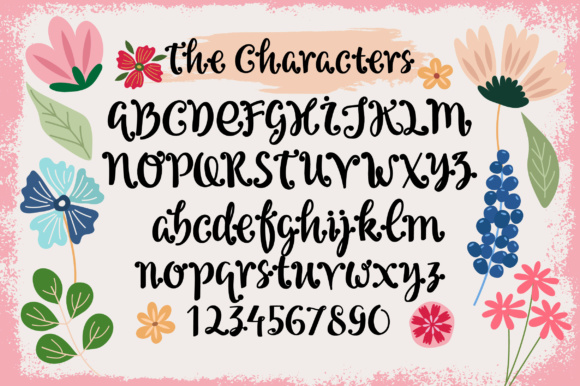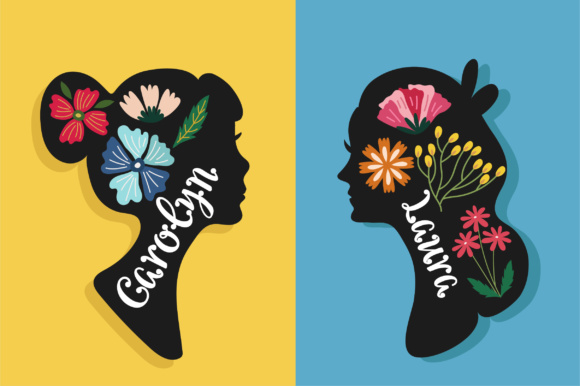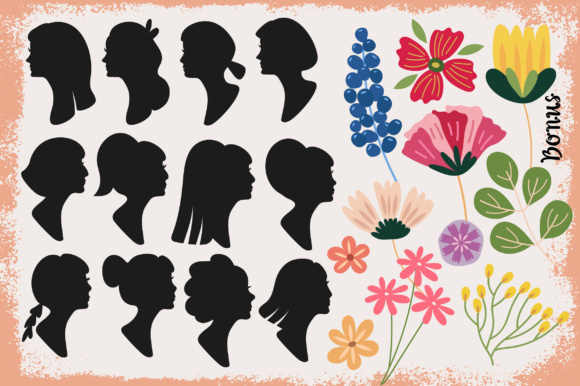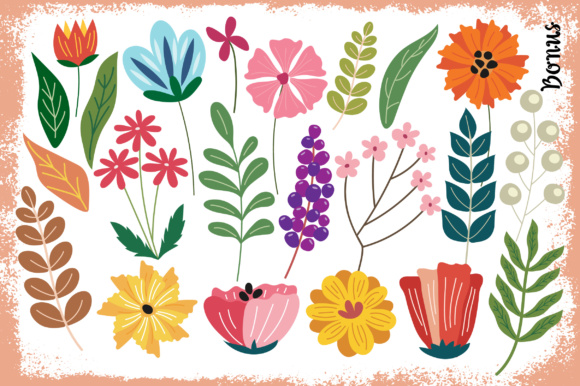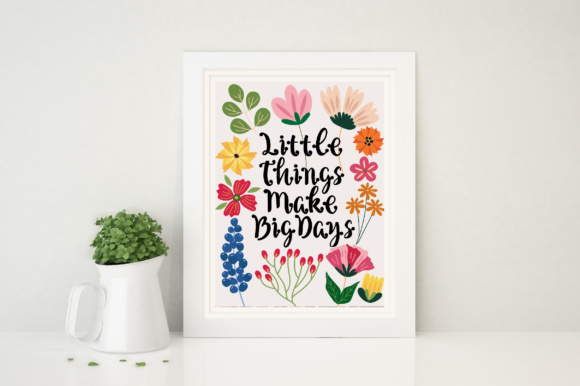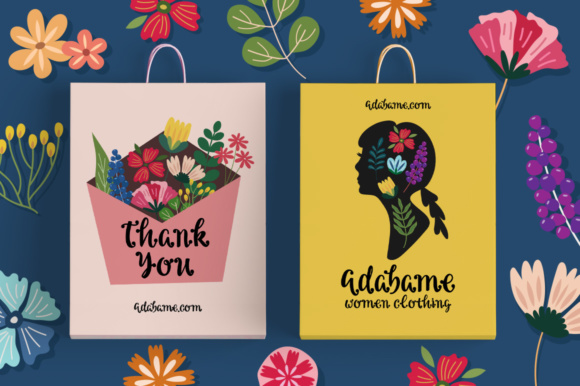
Unveiling the Magic of Adabame Font
Have you ever sat at your desk, surrounded by empty pages and a blank mind, and suddenly, a spark of creativity ignites within you? For designers, those moments are the most thrilling – the moment when an idea blossoms into something beautiful. And for those who adore romantic designs, the Adabame Font is about to become your new best friend.
This enchanting script is designed to transport you to a world of whimsy and romance, complete with beautiful women silhouettes and delicate flower illustrations. The Adabame Font is more than just a typography – it’s a gateway to a world of artistic expression, where your imagination knows no bounds.
Whether you’re a seasoned designer or just starting out, the Adabame Font is a valuable addition to your toolkit. Its unique style and charming illustrations make it an ideal choice for creating romantic designs that will leave a lasting impression.
Key Features of Adabame Font
- Font Family: Adabame is a unique, handwritten font family designed to evoke a sense of elegance and sophistication.
- Character Set: The Adabame font family includes a wide range of characters, including uppercase and lowercase letters, numbers, punctuation marks, and special characters.
- Unique Characteristics: Adabame features a distinctive, hand-drawn design with subtle imperfections and variations, giving it a unique and organic feel.
Review of Adabame Font
I recently had the chance to work with the Adabame Font, and I must say it’s an interesting addition to any design project. ✨ One thing that stands out is its unique, eclectic aesthetic. The font’s intricate details and varied letterforms add a touch of personality to any text. The Adabame Font is perfect for designers looking to create eye-catching headings or titles that stand out from the crowd.
Another advantage of the Adabame Font is its versatility. It can be used in a variety of contexts, from modern websites to vintage-inspired designs. The font’s adaptability makes it an excellent choice for designers who need a flexible font that can be easily customized to fit their project’s needs.
- ⚠️ Readability can be a concern in large blocks of text, as the font’s intricate details can make it difficult to read quickly.
- ⚠️ The font’s eclectic style may not be suitable for all design projects, particularly those requiring a clean and minimalist aesthetic.
- ⚠️ Some users may find the font’s unique details distracting or overwhelming, especially in small text sizes.
Overall, the Adabame Font is a great choice for designers looking to add some personality to their projects. While it may have some limitations, its unique aesthetic and versatility make it a valuable addition to any design toolkit.
The Adabame Font is ideal for:
- Typography-based projects, such as posters and flyers.
- Designing titles and headings for websites and social media.
- Creating visual identities for businesses and brands.
Alternatives to Adabame Font
Merriweather is a classic serif font suitable for body text, headings, and titles. It has a traditional look with strong lines and a high x-height. Merriweather is ideal for long-form content, academic papers, and publications. Compared to Adabame Font, Merriweather has a more traditional and formal feel, while Adabame Font is more modern and elegant.